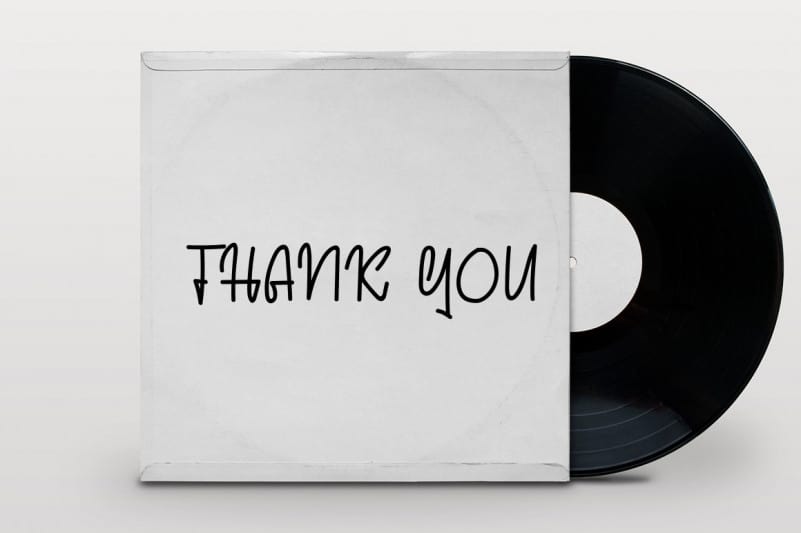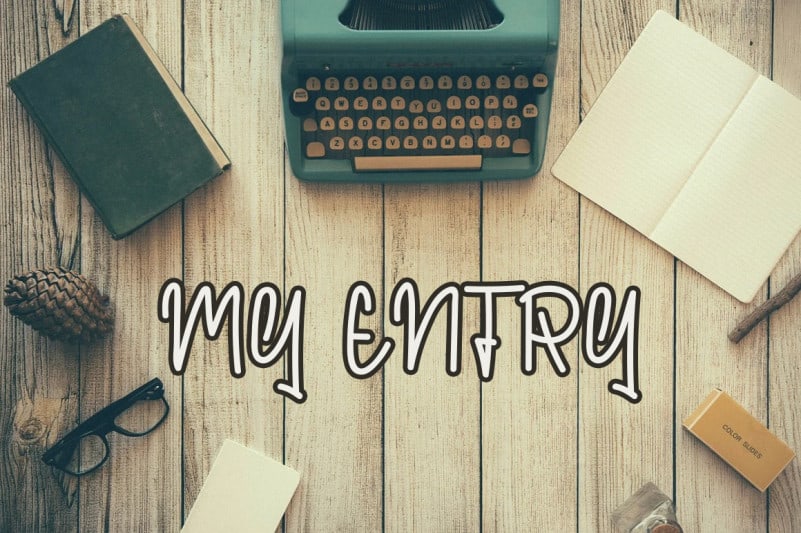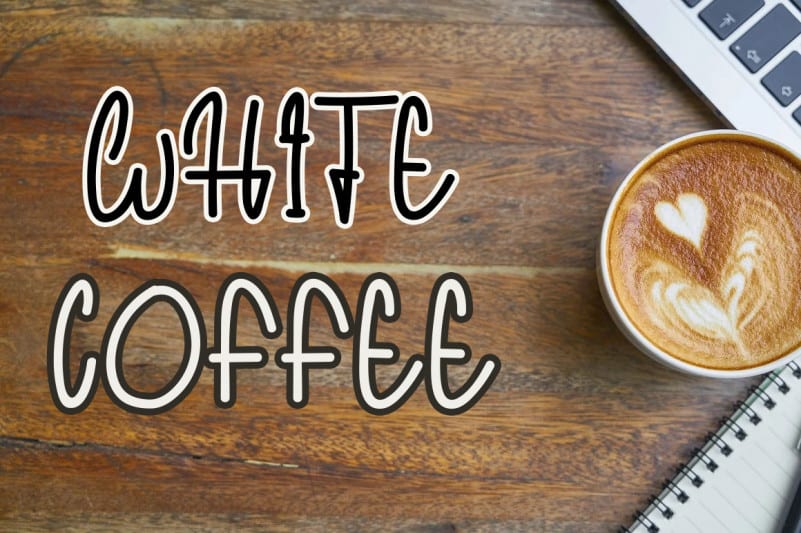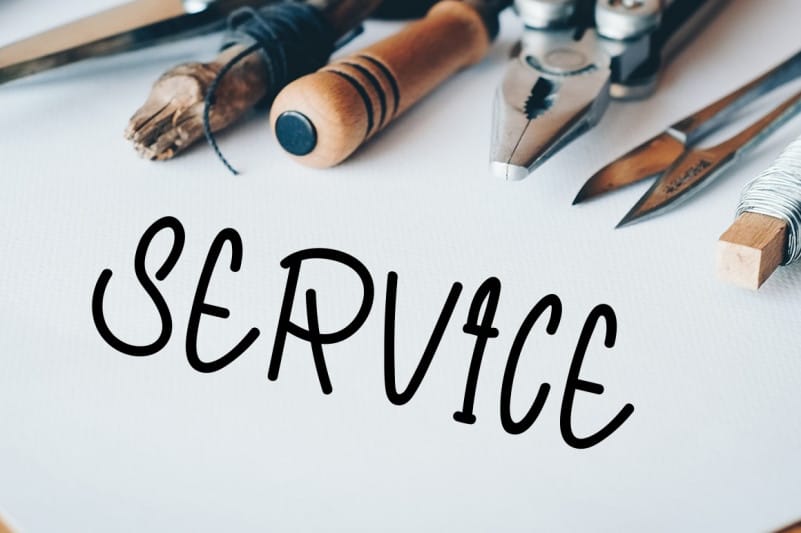
Handmade Valentine Font
Handmade Valentine Font is a whimsical, thin lettered and fresh handwritten font. Its natural and unique style makes it incredibly fitting to a large pool of designs. The only limit is your imagination!
This is a very talented product for you to use,
Latest letters that can be used for various products, invitations, wall hangings, weddings, and more.